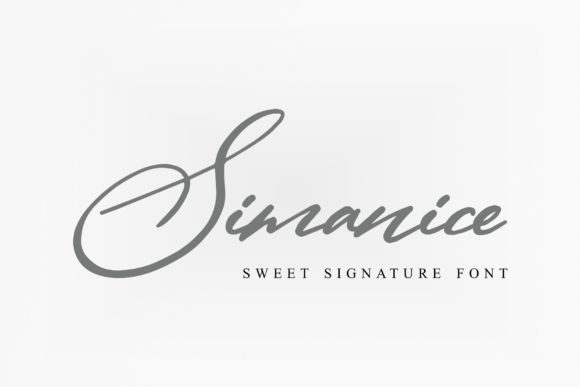
Unleash the allure of sophistication and elegance with Simanice Font, the epitome of modern calligraphy. This exquisite script font, meticulously crafted by goodjavastudio, exudes a captivating charm that will leave your designs spellbound.
Indulge in the beauty of Simanice's carefully crafted curves and flourishes, each stroke a testament to the art of typography. Its timeless appeal lends itself effortlessly to a myriad of creative endeavors, from captivating logos and branding to enchanting blog posts and social media posts. Elevate your designs to new heights with Simanice, the font that captures the essence of sophistication and grace.
Embark on a journey of creativity with Simanice, the font that transforms your words into works of art. Its versatility knows no bounds, lending its charm to�らゆる types of design projects. Whether you're crafting eye-catching advertisements or designing captivating product labels, Simanice adds a touch of elegance that sets your work apart. Experience the joy of seamless creativity as Simanice effortlessly enhances your designs, making them shine with renewed splendor.
With Simanice, you hold the key to unlocking a world of endless possibilities. Its effortless flow and timeless beauty add a touch of magic to every project you undertake. Say goodbye to mundane fonts and embrace the allure of Simanice, the font that captivates hearts and ignites imaginations. Allow your creativity to soar as you witness the transformative power of Simanice, the font that brings your designs to life.